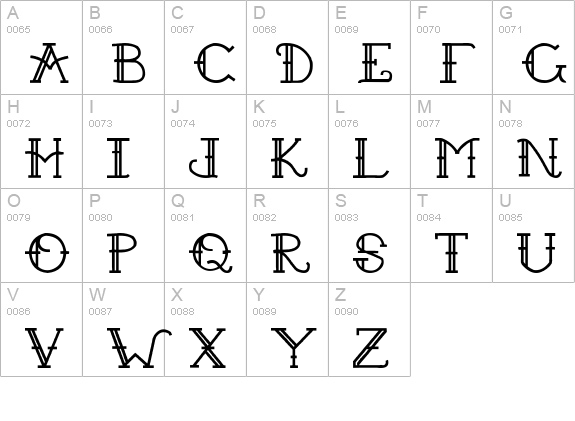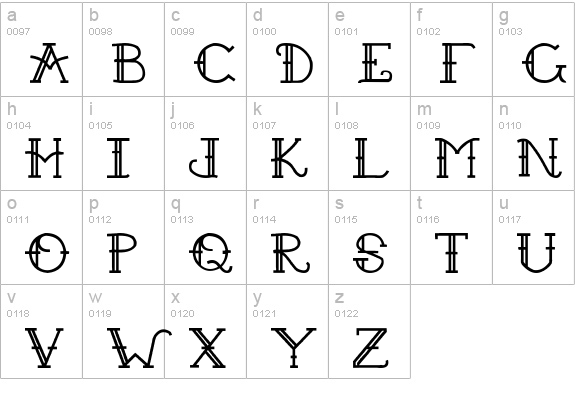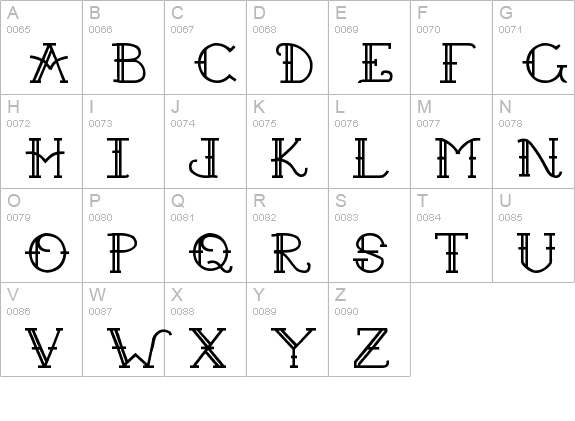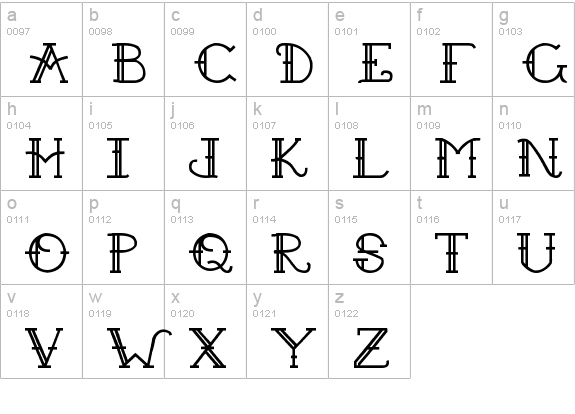
Introducing the Sailor Jerry font, a captivating typeface that effortlessly combines the classic charm of vintage lettering with a modern twist. This font pays homage to the iconic style of Norman "Sailor Jerry" Collins, a legendary tattoo artist who left an indelible mark on the world of body art. With its bold and dynamic letterforms, Sailor Jerry captures the essence of rebellion and individuality, making it the perfect choice for those seeking to add a touch of edginess to their designs. Each character boasts intricate details and a distinctive hand-drawn quality, giving your projects a unique and authentic feel. But what truly sets the Sailor Jerry font apart is its availability. Yes, you read that right – it's free! Thanks to the generous folks at FontsMarket.com, this remarkable typeface can be freely downloaded and used for both personal and commercial projects. Whether you're designing a tattoo, creating a poster, or crafting a logo, Sailor Jerry font will bring a sense of character and originality to your work. So why wait? Embrace the spirit of adventure and rebellion by incorporating the Sailor Jerry font into your next creative endeavor. Download it now at FontsMarket.com and unleash your imagination with this one-of-a-kind typeface.